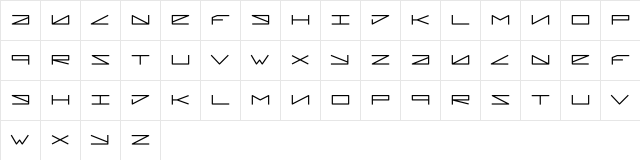
Pleiadian Regular
Pleiadian Family
Design Context for Pleiadian
Pleiadian is a composed and adaptable typeface that performs quietly and consistently across a wide range of design contexts.